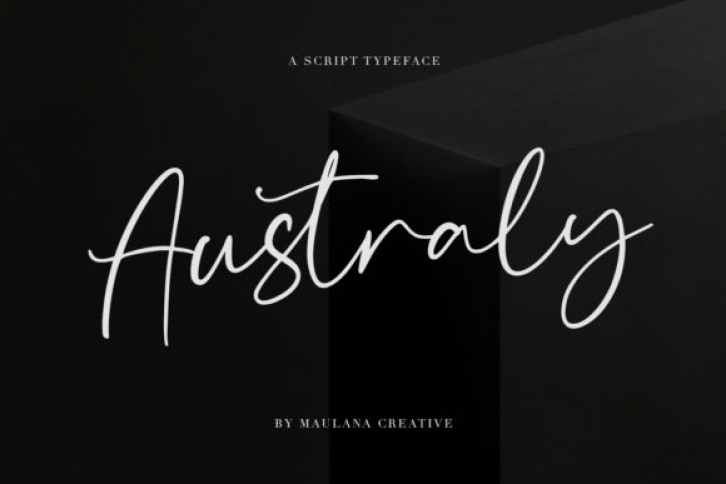
Australy is a beautiful signature font. Whether you’re looking for fonts for Instagram or calligraphy scripts for DIY projects, Australy will turn any creative idea into a true piece of art!